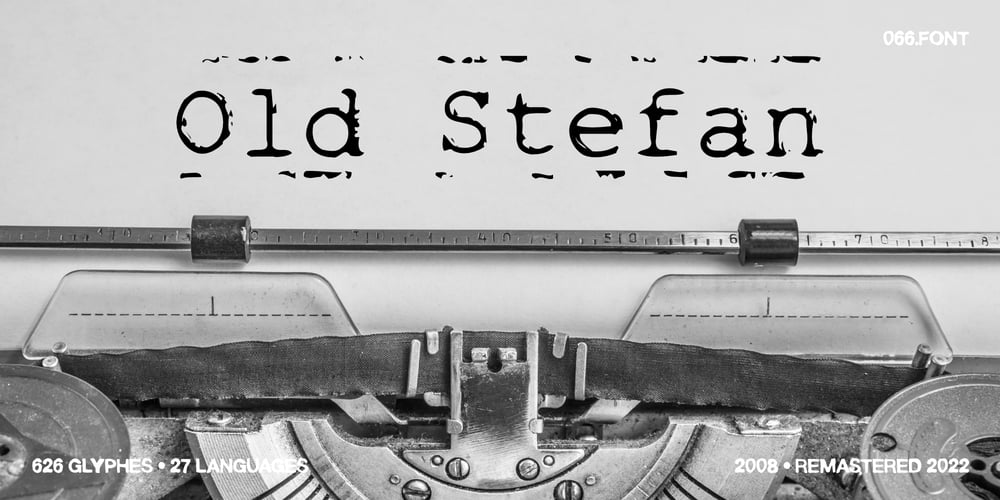
Old Stefan Font Family was designed by Piotr Wozniak and published by 066.FONT. Old Stefan contains 1 styles and family package options. Old Stefan is a display font that simulates the appearance of typewritten text. Each letter in Old Stefan has been carefully designed to resemble the effect you get with a typewriter. This effect adds a sense of nostalgia to the text, as if it were from a bygone era, adding an authentic charm to the designs. Old Stefan retains its varied and extravagant style, giving the text a lightness and a certain nonchalance. Its distinctive and daring letters make it ideal for projects that strive for a unique look, while harking back to the typewriter vibe of the past. Remastered in 2022.